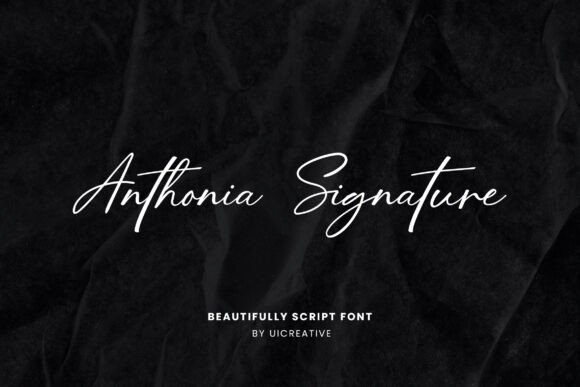
Discover the Elegance of Anthonia Signature Font
A Beautifully Script Font for Various Projects
The Anthonia Signature Font is a modern display font that embodies beauty, class, elegance, and style. This versatile font is ideally suited for a wide variety of projects, such as:
- Signature designs
- Stationery and branding materials
- Logo creation
- Wedding invitations and typography quotes
- Magazine or book covers
- Website headers
- Fashion-related branding or editorial design
An Honest Review of Anthonia Signature Font
- ✨ Elegant and sophisticated design
- ✅ Highly versatile for various projects
- ✅ Supports multiple languages
- ✅ OpenType features for advanced typography
While the Anthonia Signature Font is an excellent choice, there are a few minor considerations to keep in mind:
- ⚠️ May not be suitable for body text due to its script nature
- 🤔 Limited availability of condensed or italic versions
The Designer Inspiration Behind Anthonia Signature Font
The Anthonia Signature Font was designed with inspiration from classic calligraphy and modern typography. The creator aimed to craft a font that would exude elegance and sophistication while being versatile enough for various design projects.
Q: What type of projects is Anthonia Signature Font best suited for?
A: Anthonia Signature Font is ideal for designs that require elegance and sophistication, such as wedding invitations, logo creation, and fashion branding.
Q: Can I use Anthonia Signature Font for body text?
A: While possible, Anthonia Signature Font is not recommended for body text due to its script nature. It’s better suited for headlines and titles.
Q: Does Anthonia Signature Font support OpenType features?
A: Yes, Anthonia Signature Font supports OpenType features, including glyphs, stylistic alternates, and ligatures.